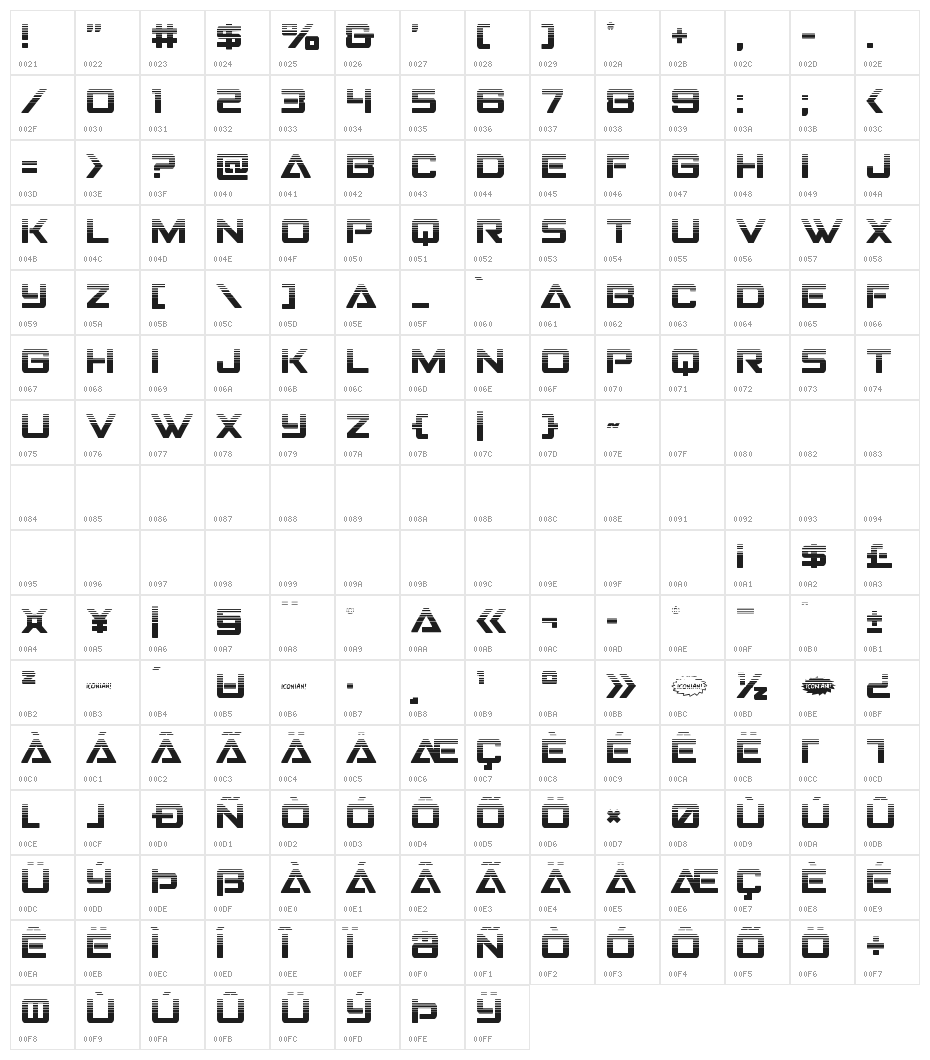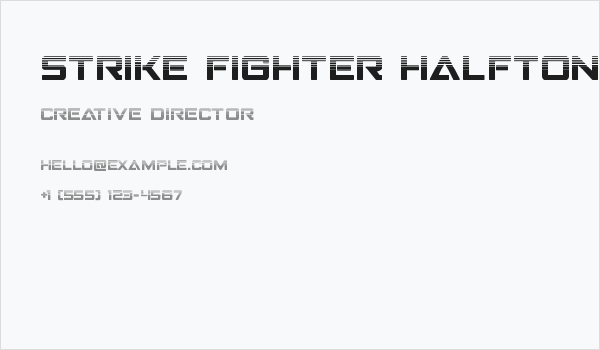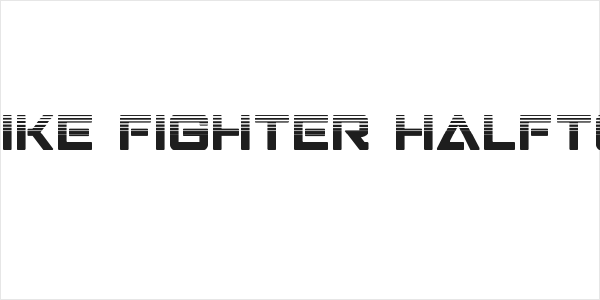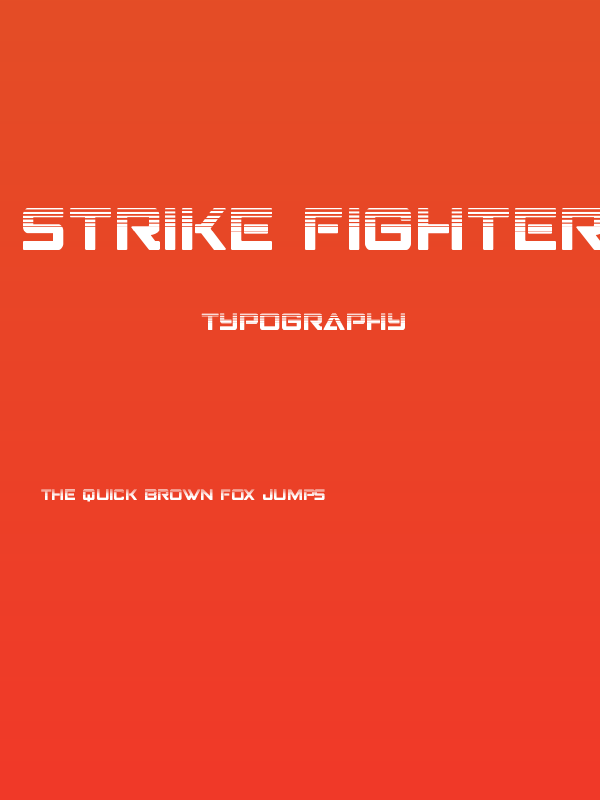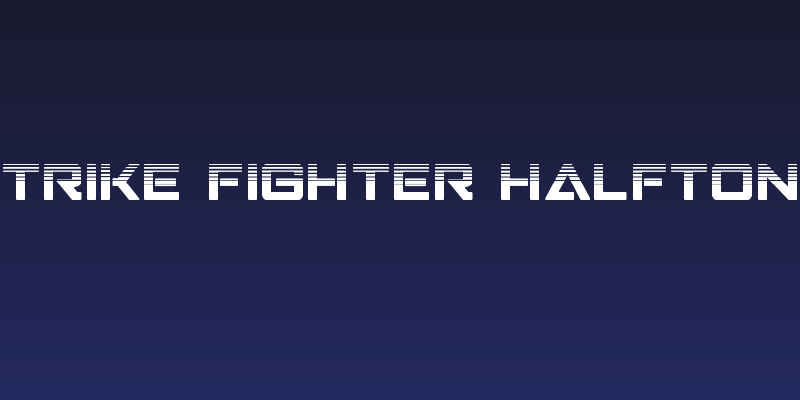
Strike Fighter Halftone Font
Strike Fighter Halftone Description
This font features a bold, futuristic design with a halftone effect that gives it a dynamic and energetic appearance. The characters are constructed with solid, geometric shapes, and the halftone lines add a sense of movement and depth. The uppercase and lowercase letters maintain a consistent style, with sharp angles and a slightly condensed form. The numerals and special characters are equally bold and stylized, making them stand out. This font is ideal for projects that require a modern, tech-inspired look.
| Proposed Projects | Ideal for tech branding, video game titles, sci-fi posters, and modern advertising. |